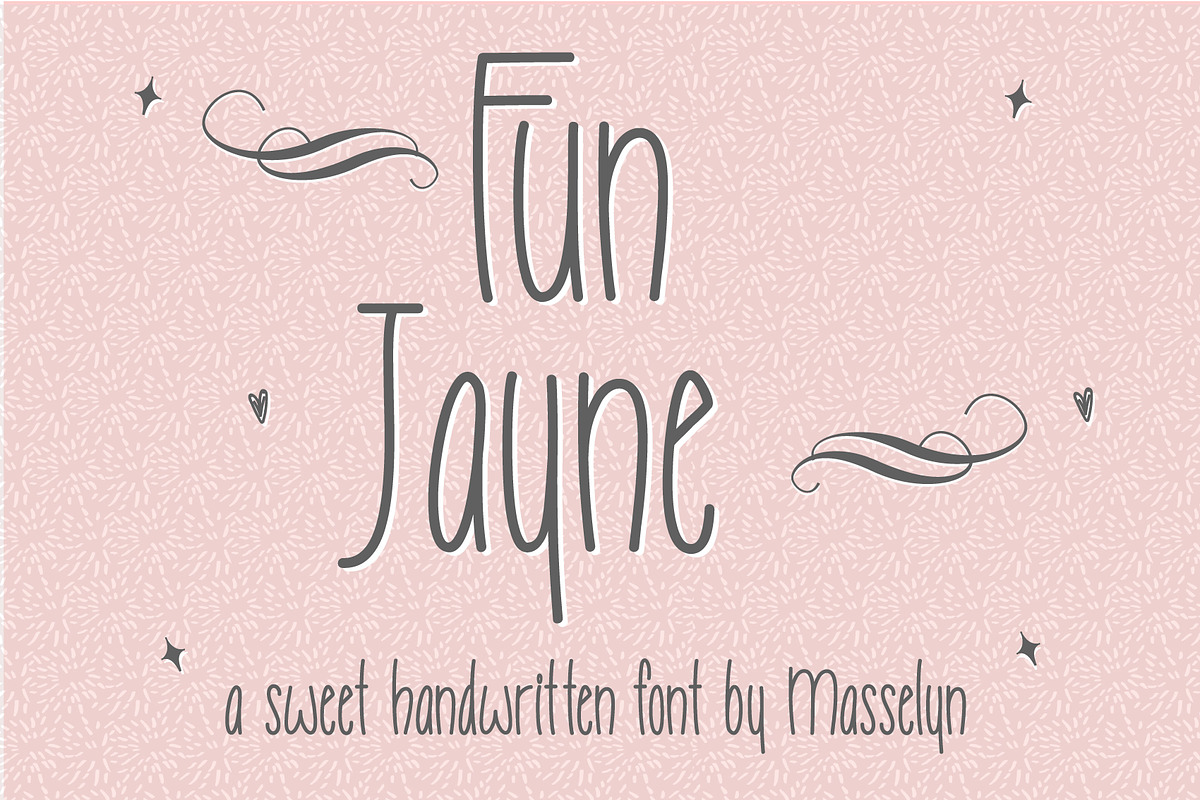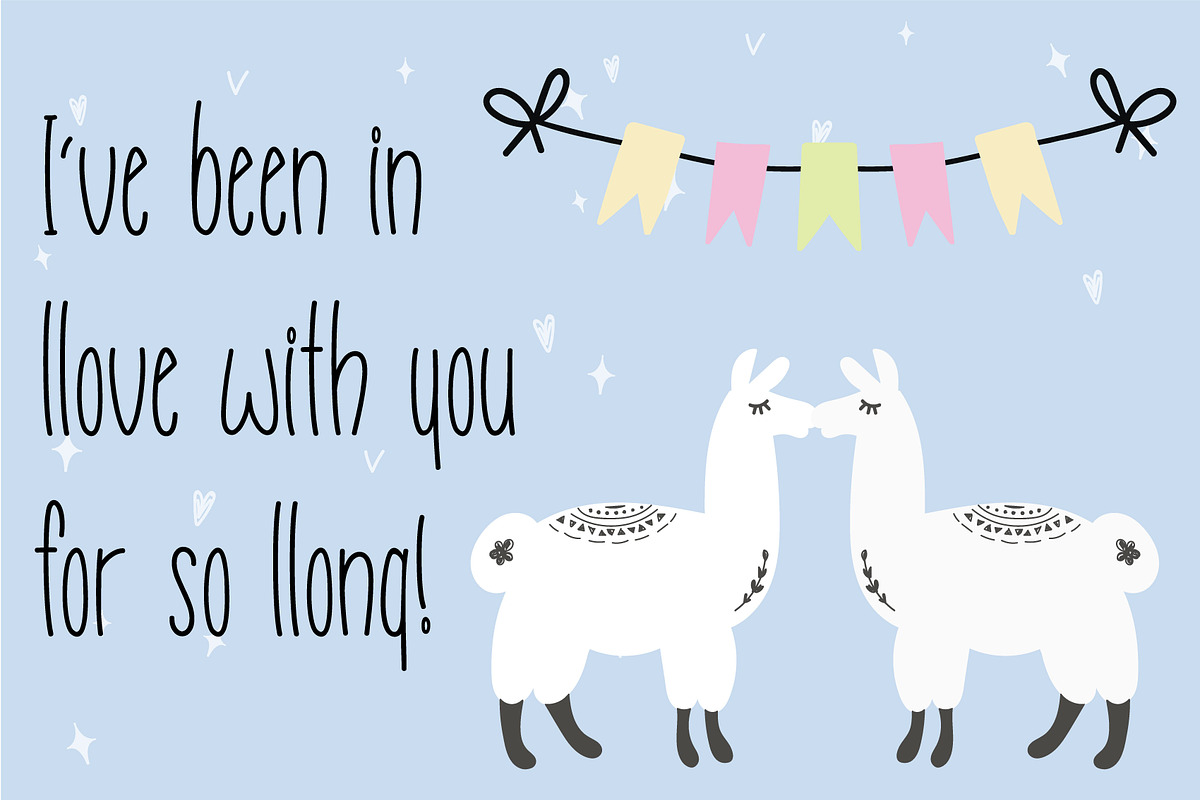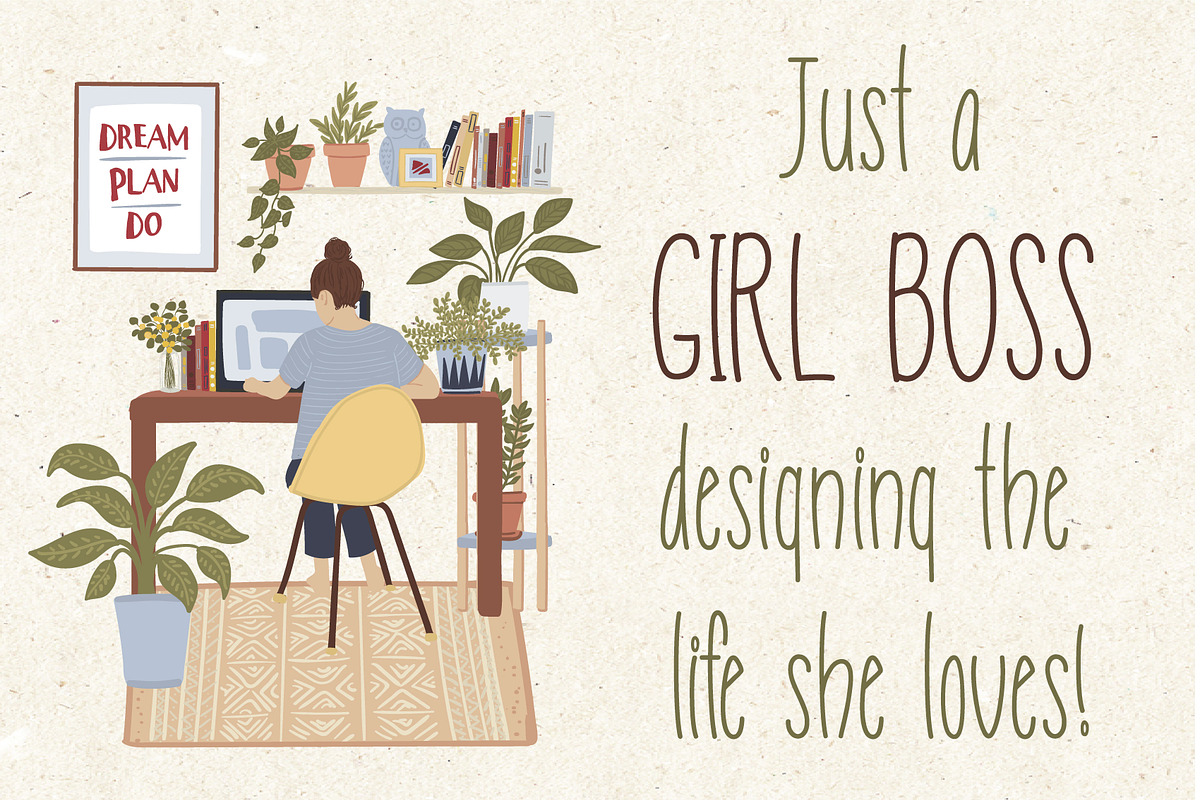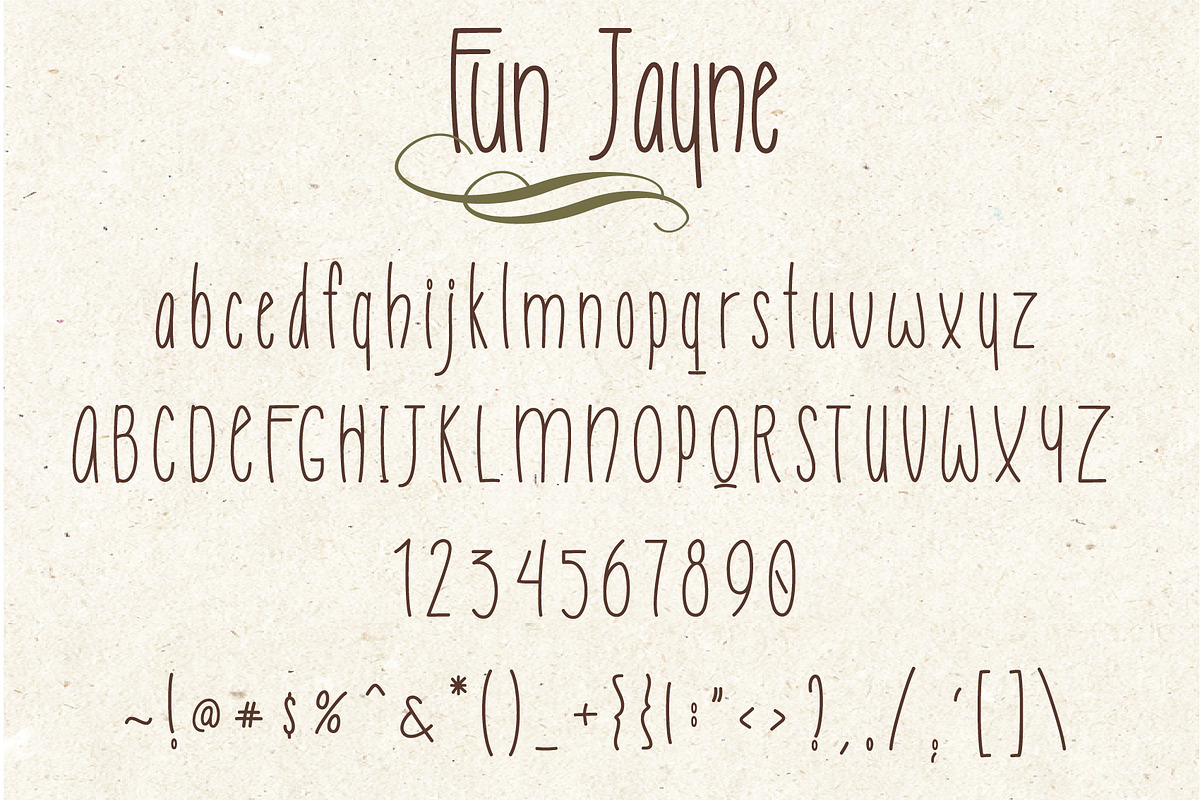
Fun Jayne // Sweet Handwritten Font
My new "Fun Jayne" font is so versatile, because it is easy to read in small and large sizes. Perfect for any creative ideas you might have - website headers, posters, cards, labels, logos & more...let your imagination run wild!!
The following letters & characters are included:
- All uppercase letters
- All lowercase letters
- Latin Accents